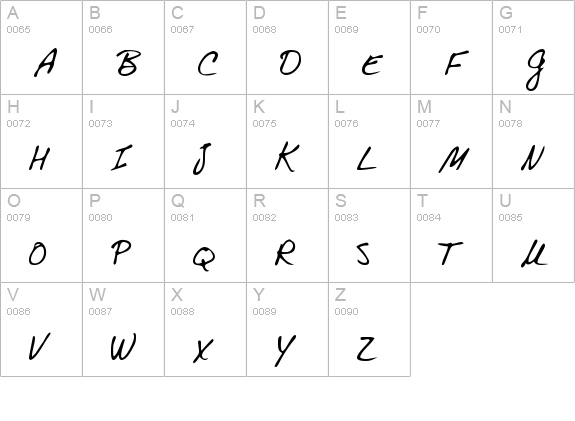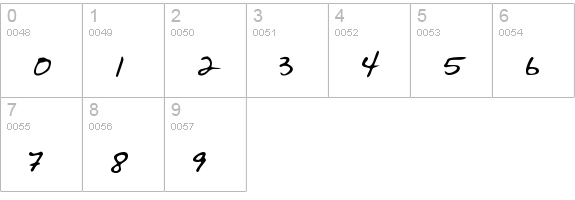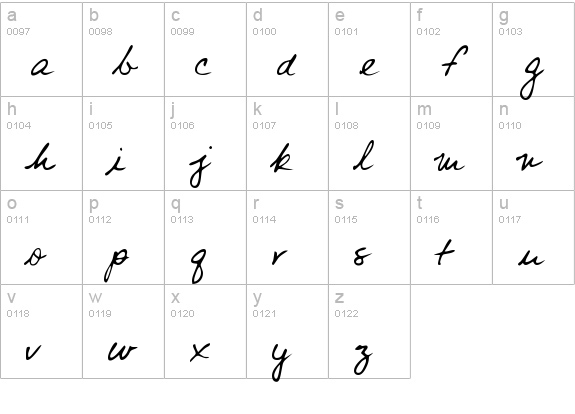
ElliesHand Regular Font Details
ElliesHand Regular is the standard, neutral variant in the ElliesHand typeface family \xE2\x80\x94 well suited to general body text, paragraphs, and standard typographic work.
ElliesHand Regular font is a charming and elegant typeface that exudes a sense of warmth and friendliness. Its playful yet sophisticated design makes it perfect for a wide range of creative projects, from invitations to branding to social media graphics. This delightful font features smooth curves and flowing lines that add a touch of whimsy to any text. Whether you're looking to add a personal touch to your designs or simply want to stand out from the crowd, ElliesHand Regular is sure to make a lasting impression. Best of all, ElliesHand Regular is completely free to download at FontsMarket.com. So go ahead and give your projects that extra special touch with this beautiful and versatile font today!